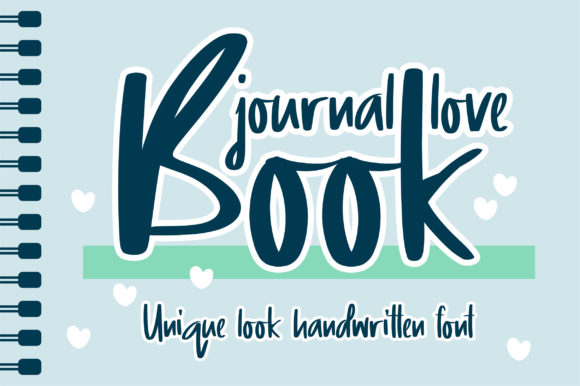
Leap into the realm of creativity with Journal Love Book Font, a charming handwritten font that captures the essence of timeless elegance and heartfelt emotions. Embark on a typographic adventure with this delightful script font, allowing your words to dance across the page with grace and personality.
Unleash your creativity and delve into a world of possibilities with Journal Love Book Font. With its beautiful strokes and playful character, this font is perfect for adding a personal touch to your designs. Create stunning wedding invitations that reflect the joy and romance of your special day, or craft delicate stationary art that exudes sophistication and charm.
Let your imagination soar as you design eye-catching social media posts that pop off the screen with personality. Engage your audience with captivating typography that speaks volumes, expressing your brand's unique voice and style. Design cute greeting cards that warm hearts and bring smiles to faces, leaving a lasting impression on your loved ones.
Immerse yourself in the limitless possibilities that await with Journal Love Book Font. Its versatility knows no bounds, making it the perfect choice for a wide range of creative projects. From heartfelt letters to whimsical posters, this font adds a touch of magic to every word it graces.